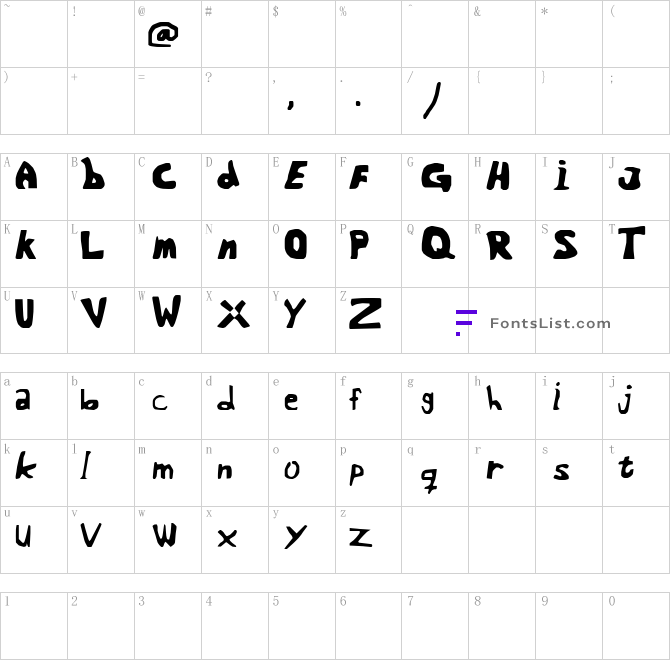
- Font Name:Caffeine (enhanced) 2000
Caffeine-enhanced-2000.ttf is a very beautiful artistic font, Caffeine-enhanced-2000.ttf is widely used in the design and printing of various books and pictures,Caffeine-enhanced-2000.ttf has a strong visual impact,Caffeine-enhanced-2000.ttf is a commonly used font in newspapers, magazines and books, and is used in posters, e-commerce Poster design, store design, logo design, font design and other fields.Caffeine-enhanced-2000.